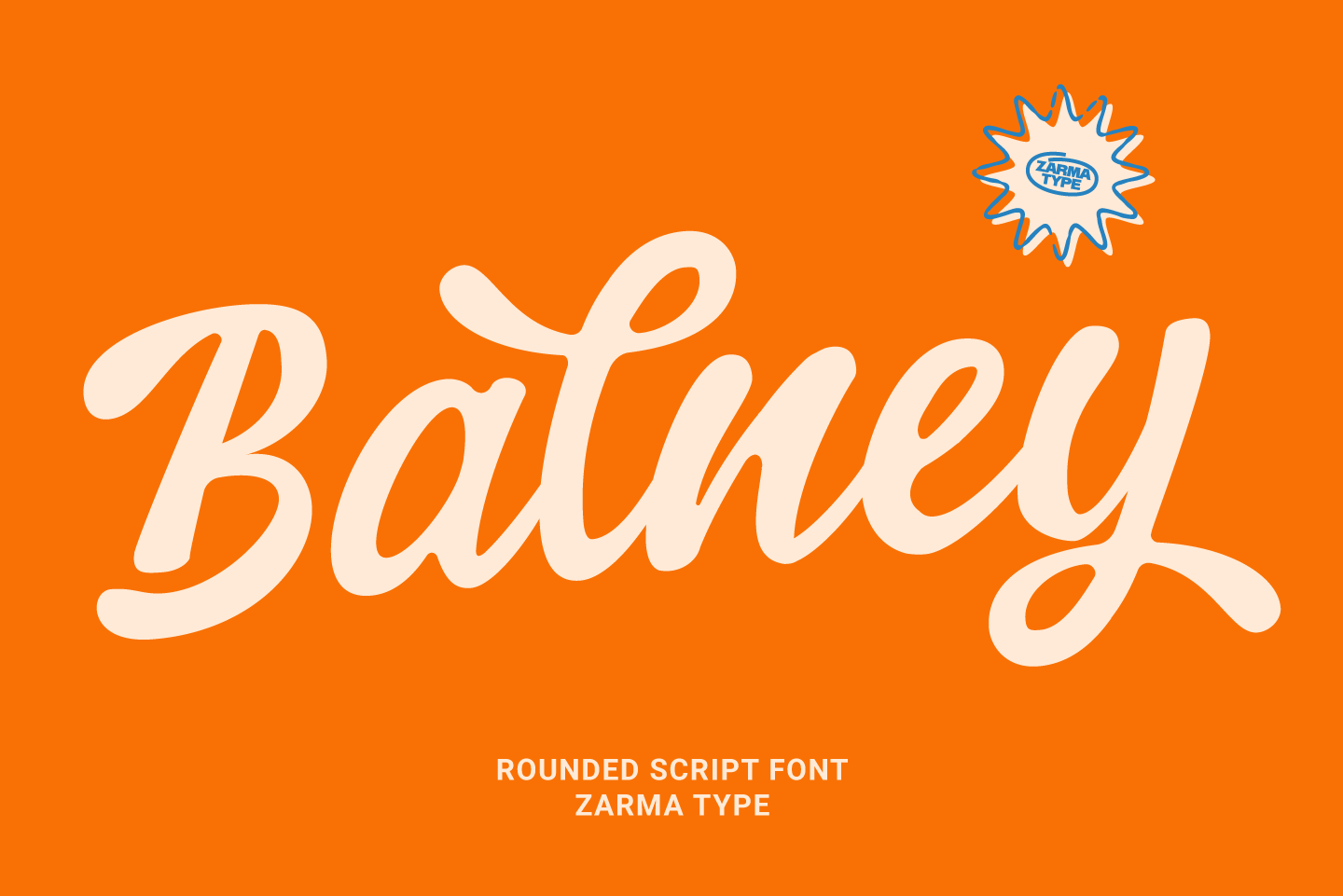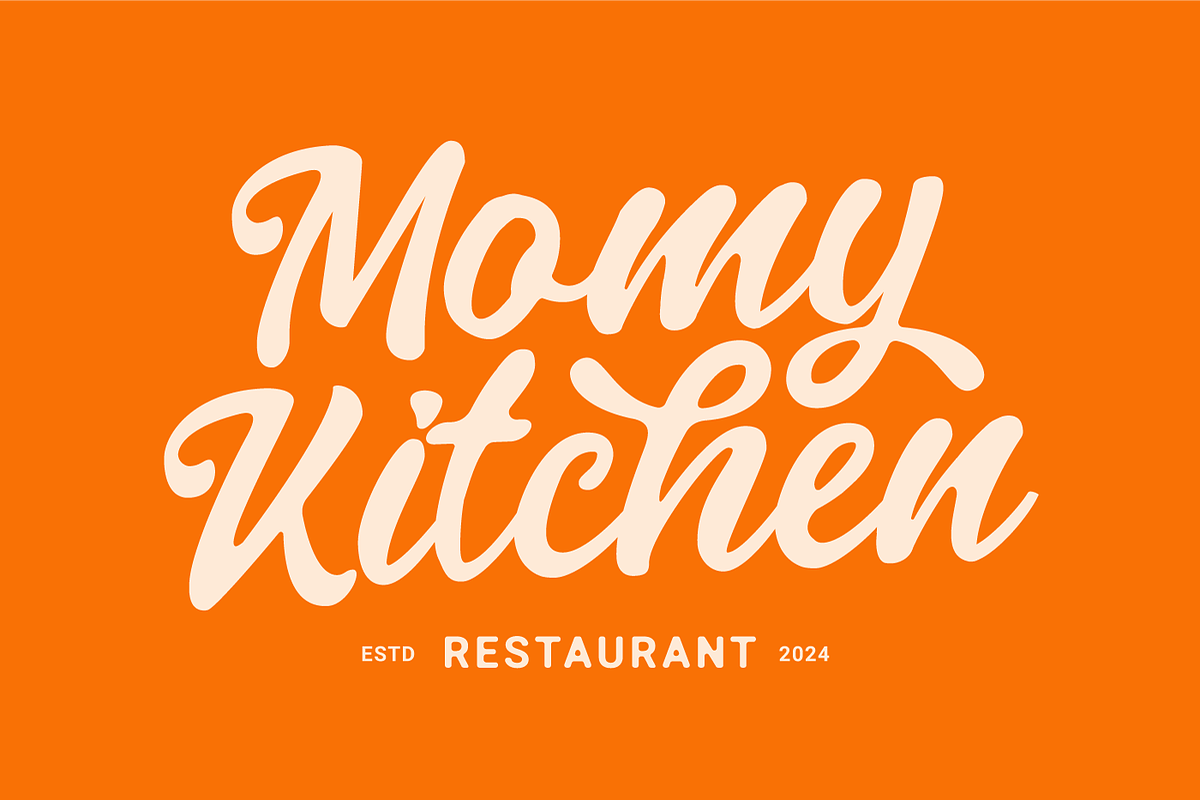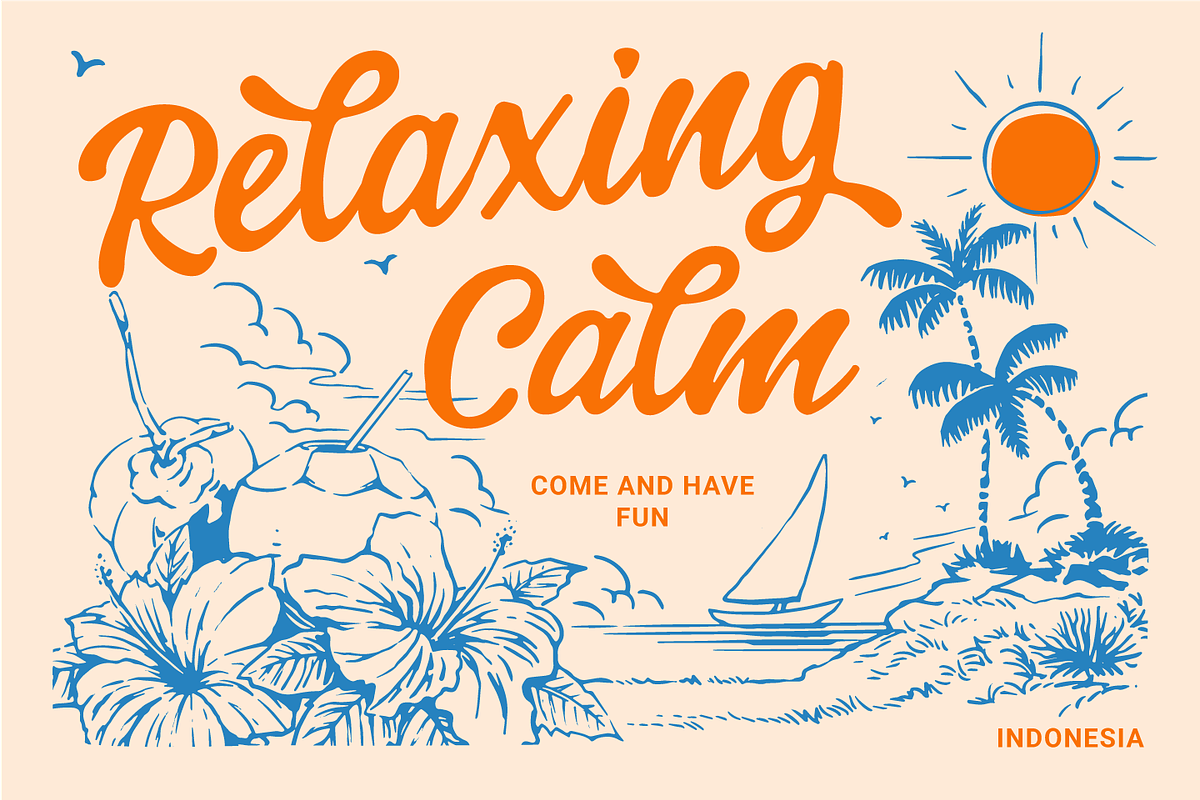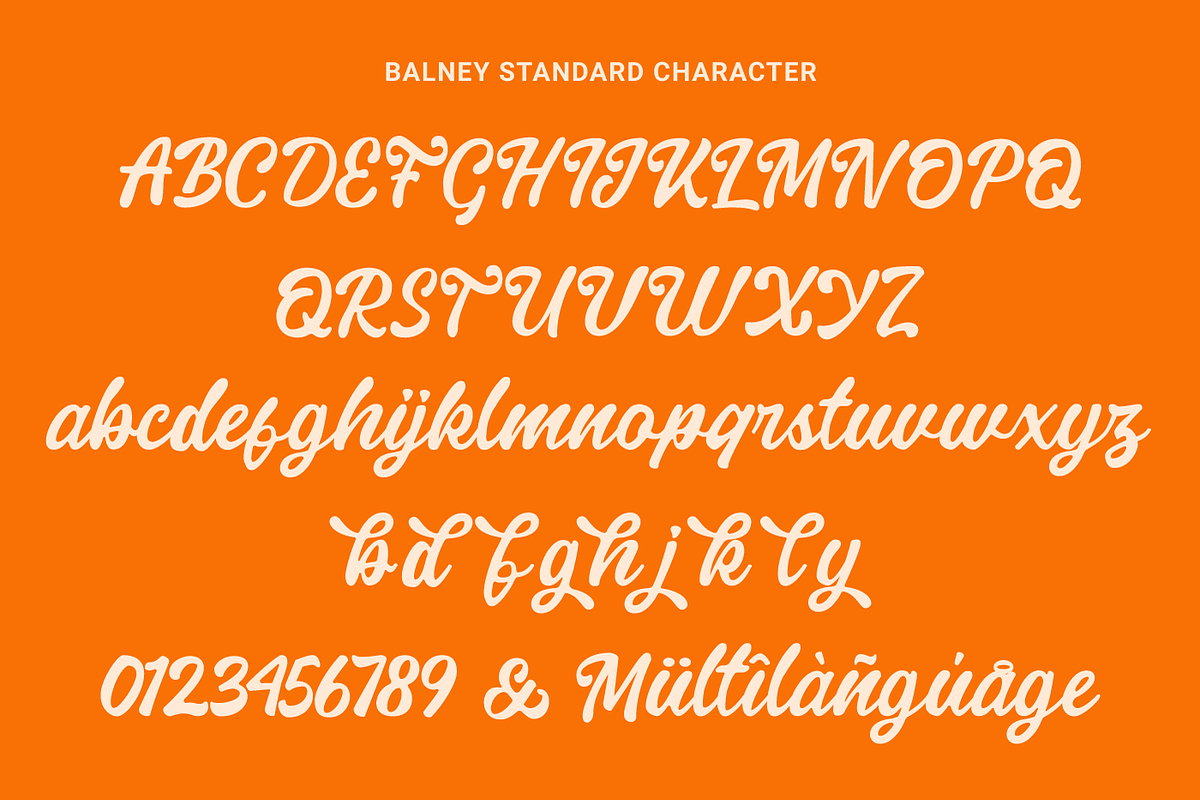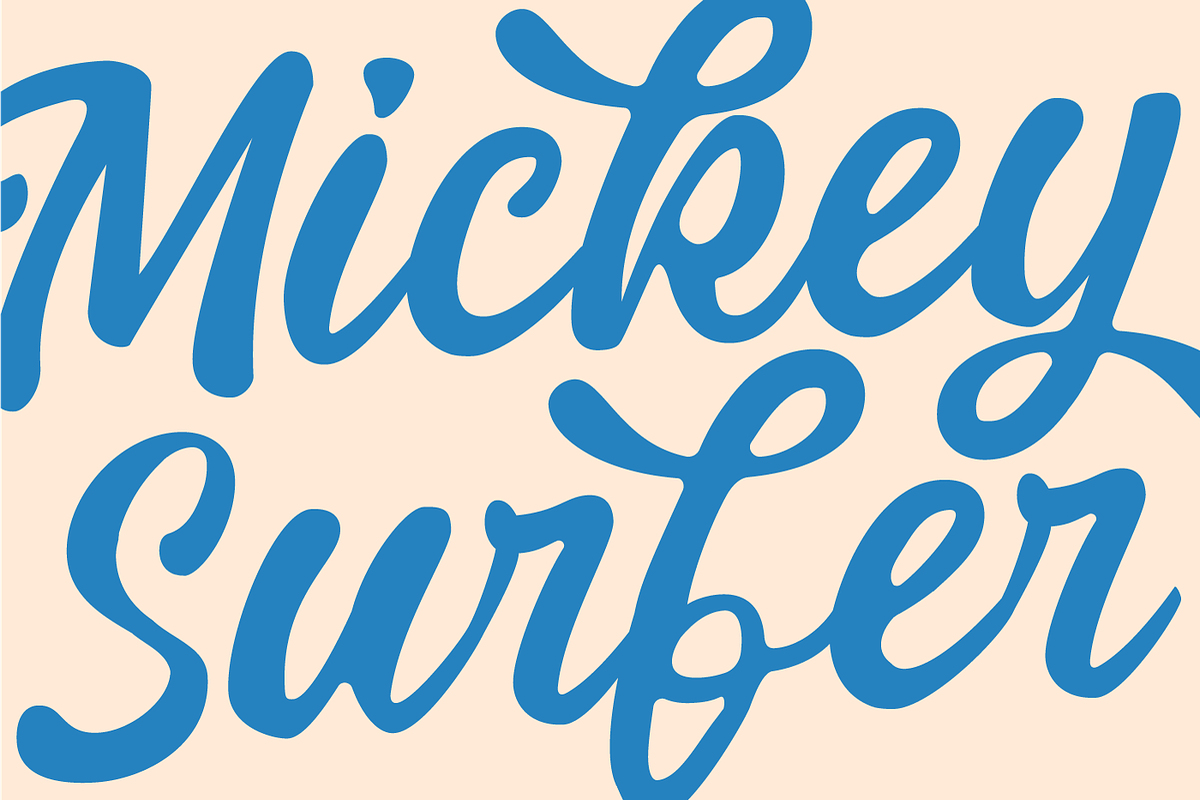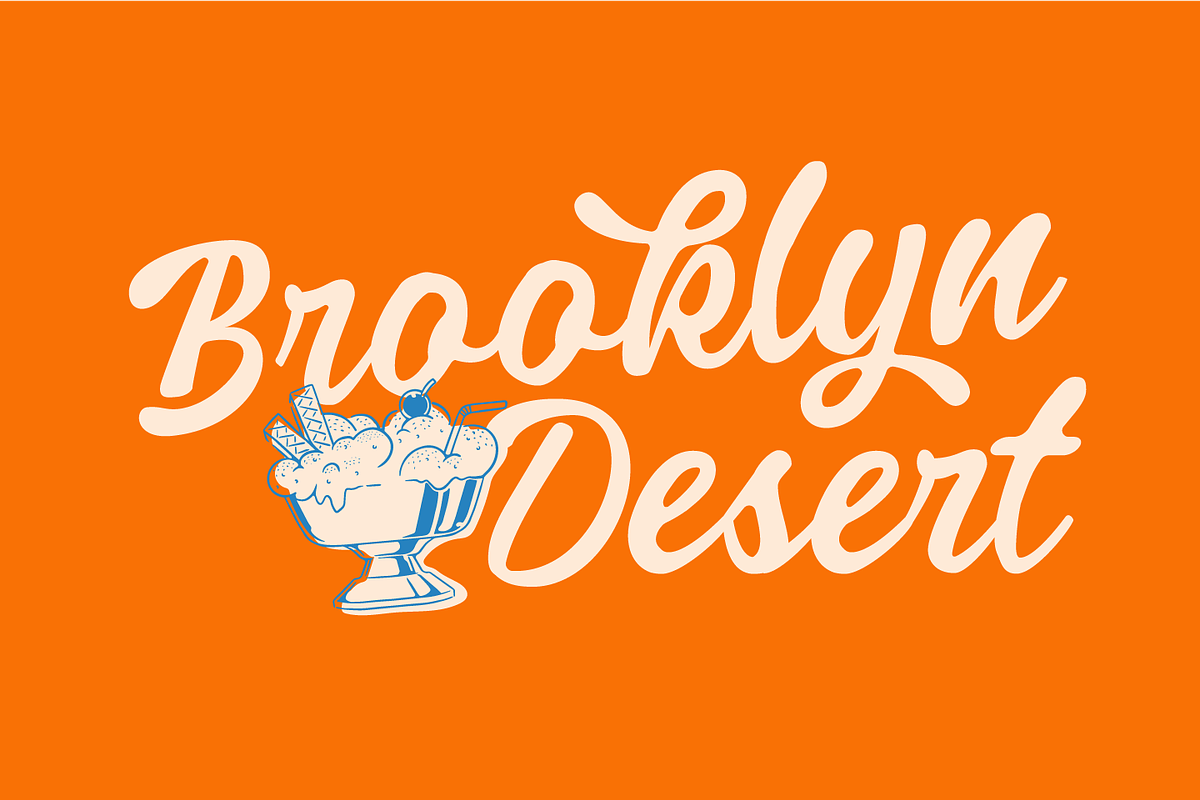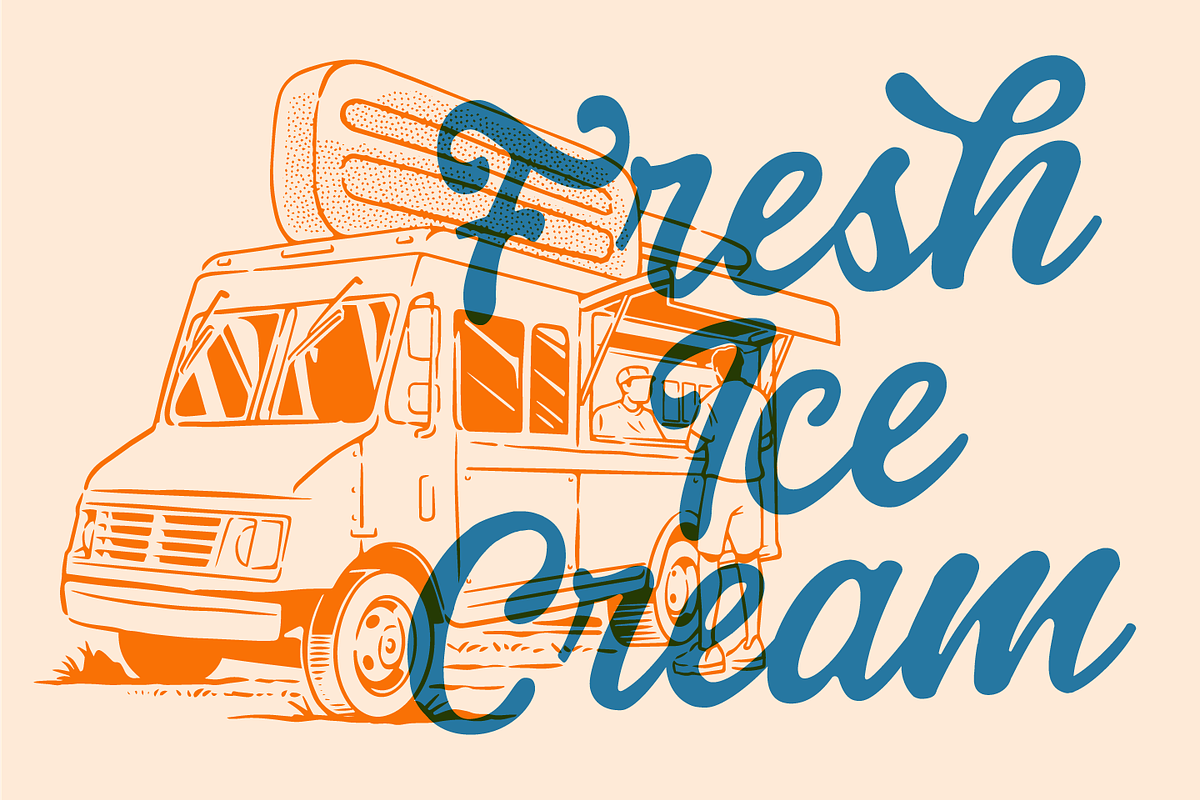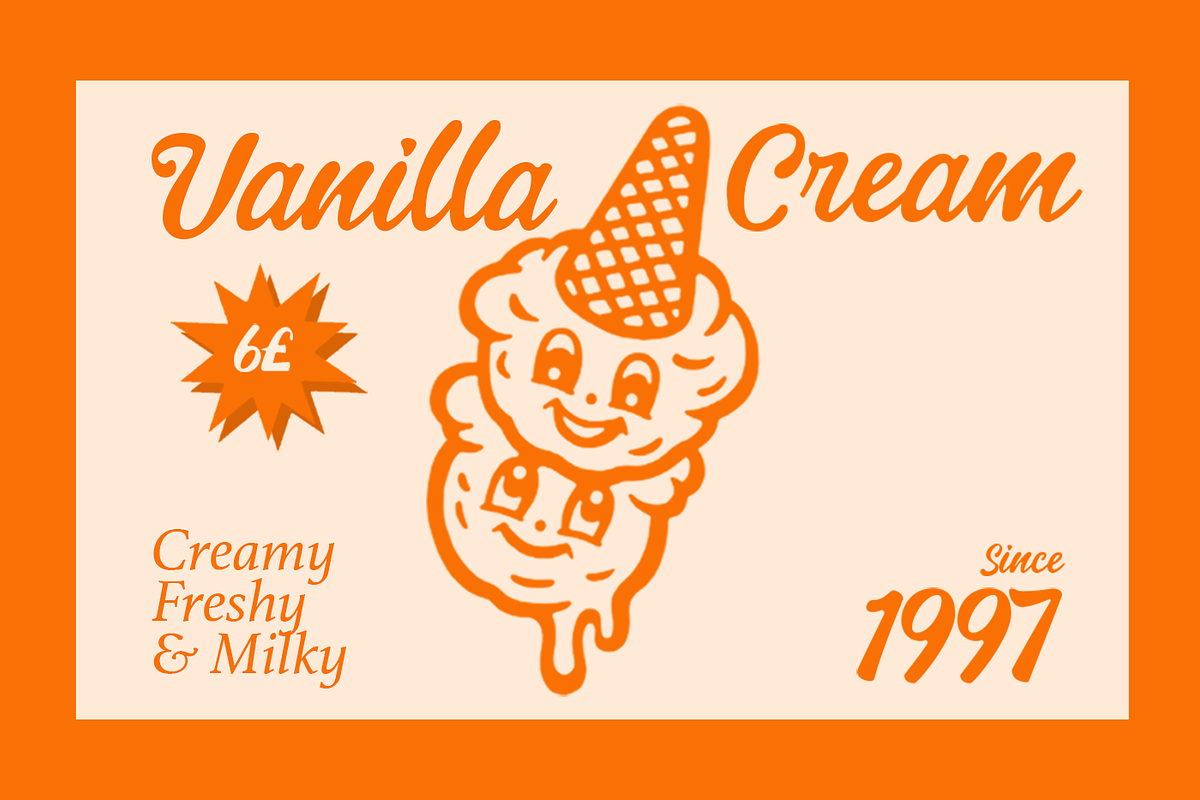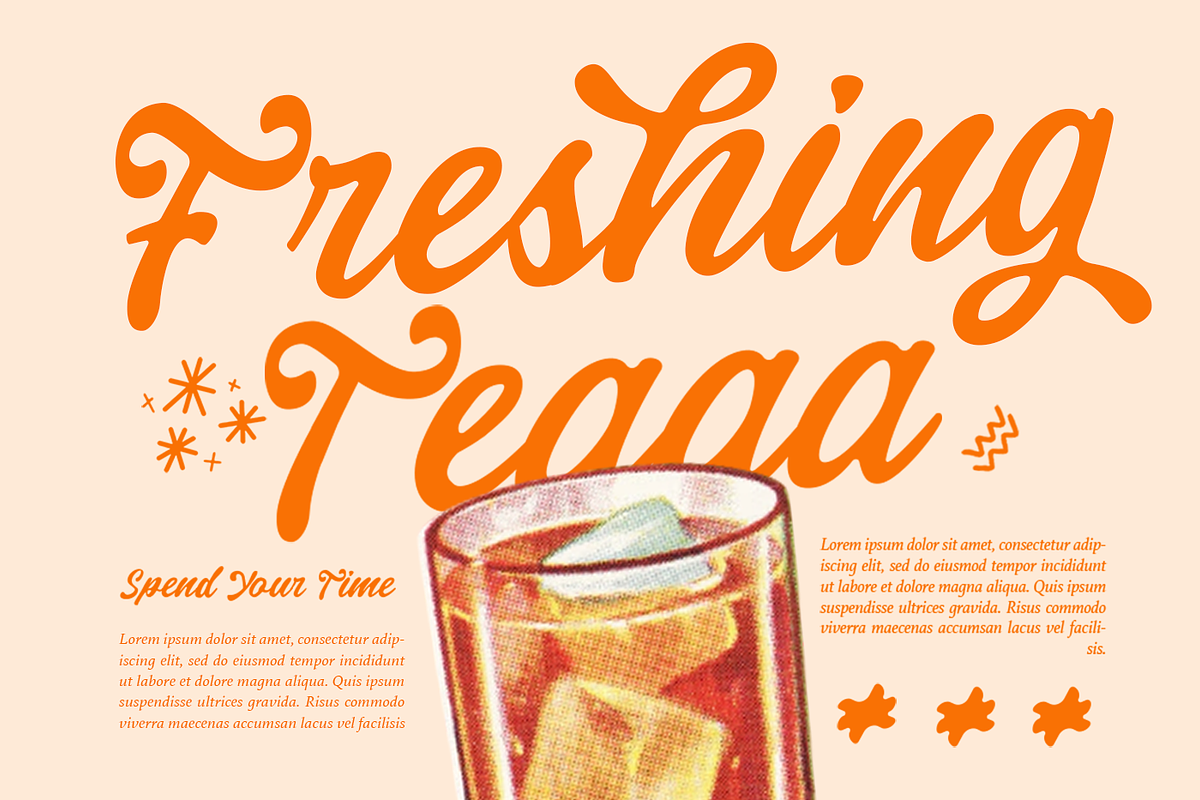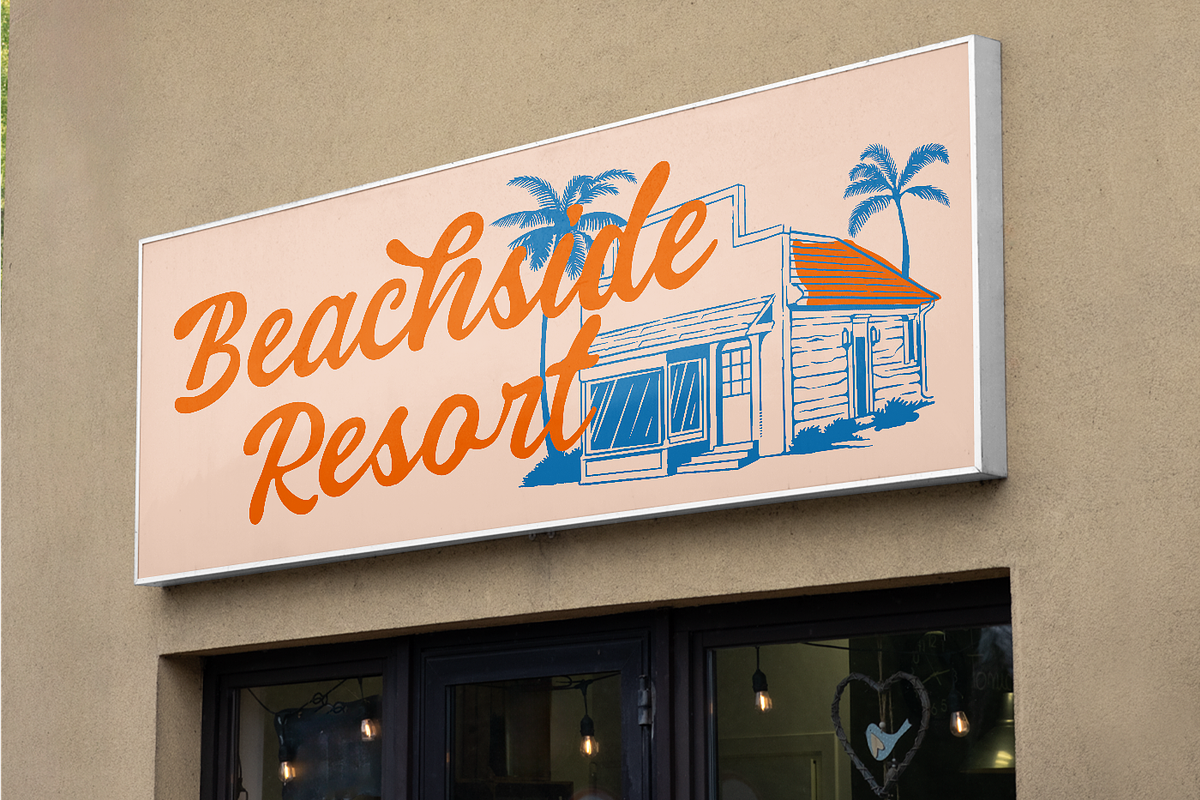
Balney - Rounded Script Font
Balney Font is a charming rounded script typeface that perfectly blends retro warmth with modern freshness. With its smooth flowing curves and balanced strokes, it embodies the carefree spirit of summer while maintaining professional versatility across various applications.
Each character has been meticulously crafted to ensure seamless connections and natural flow, making it ideal for brands that want to convey a friendly and approachable personality. The font's distinctive style carries strong summer nostalgia while remaining contemporary and highly readable across different sizes.
- Food & Beverage Branding
- Beach/Summer-themed Businesses
- Lifestyle & Fashion Brands
- Social Media Content
- Product Packaging
- Logo & Brand Identity Design
- Resort & Hospitality Branding
- OpenType features
- Optimized Kerning
Transform your designs with Balney Font – where summer vibes meet professional typography. Whether you're crafting a beachside café brand identity or designing lifestyle products, Balney Font delivers that perfect blend of playfulness and sophistication that will make your projects stand out.